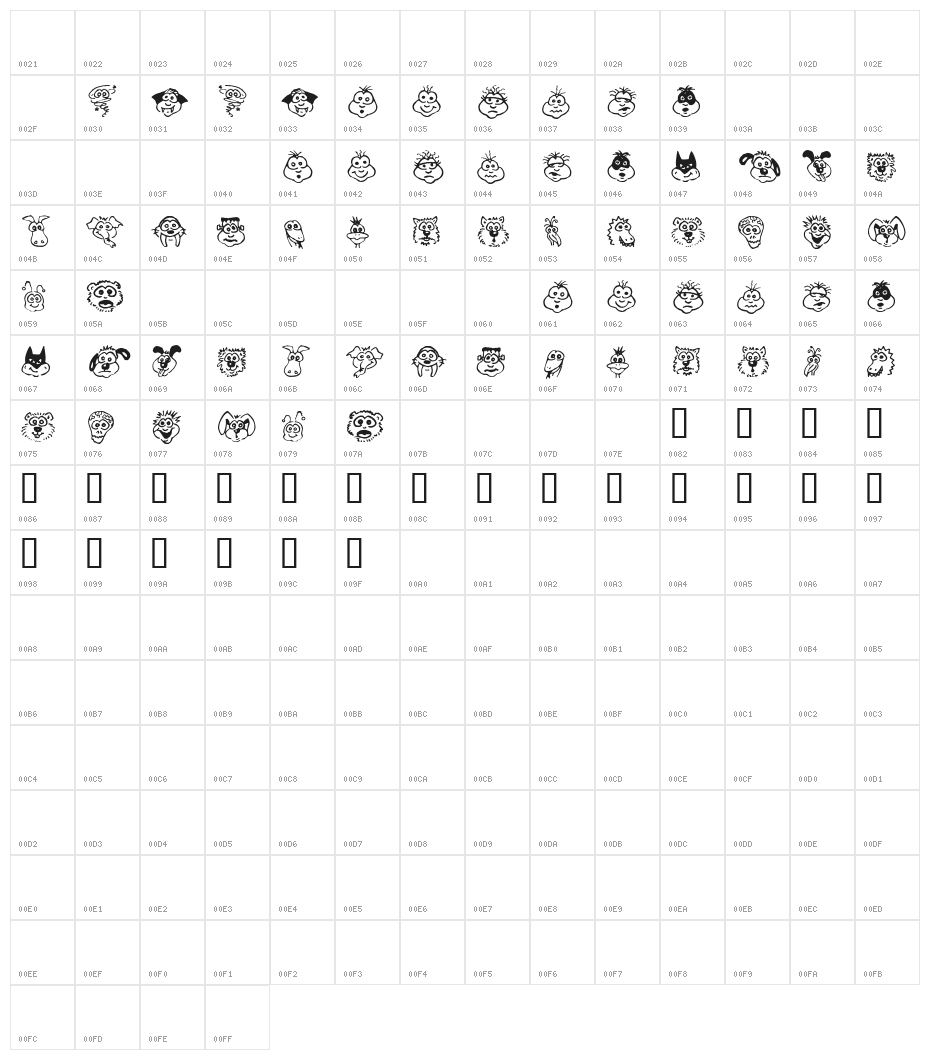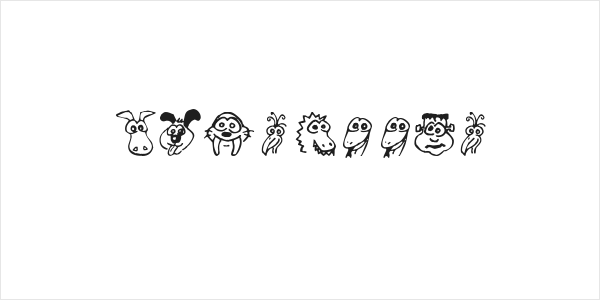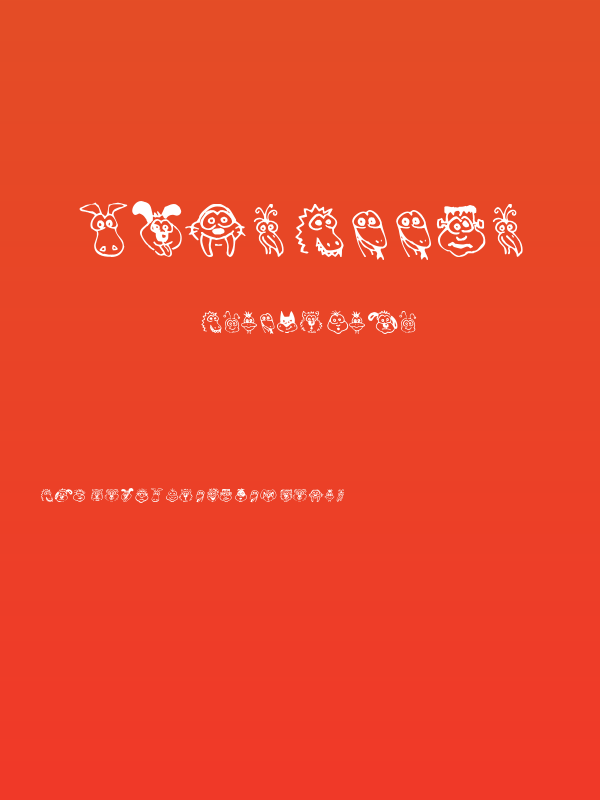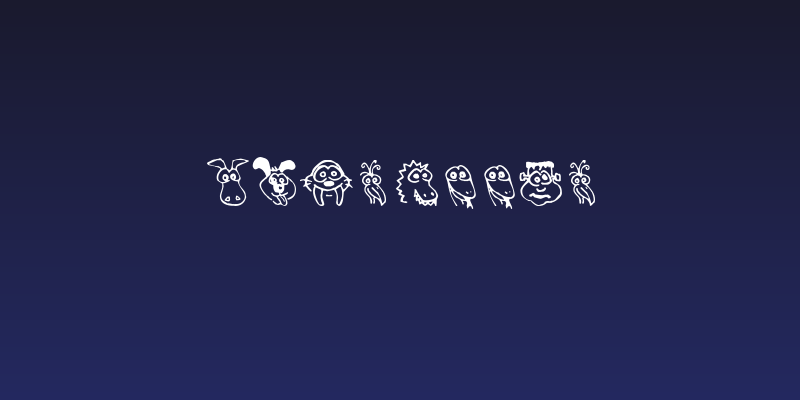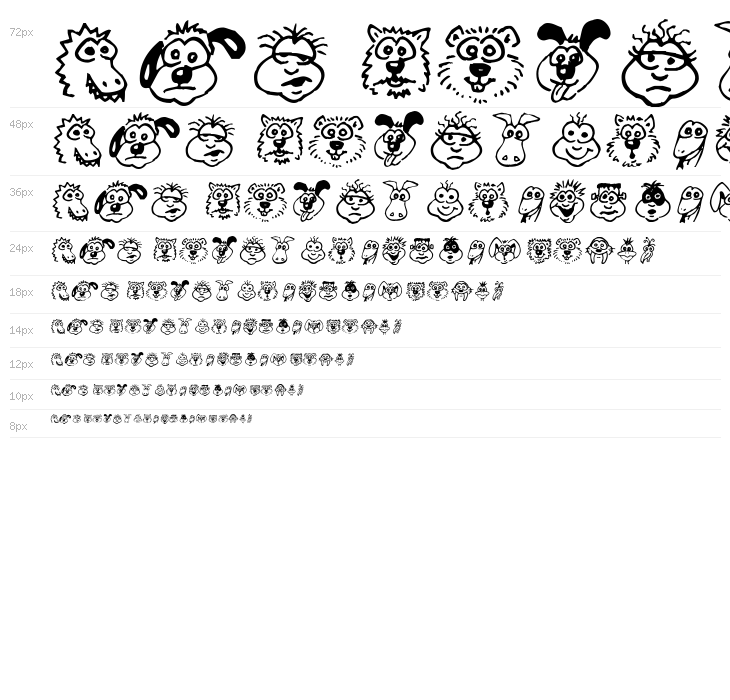
Kims Toons Font
| Gesamtstil | Playful, Whimsical, Decorative |
| Anwendungsfall | Decorative elements, icons, children’s projects, comics |
| Vorgeschlagene Projekte | Children’s books, party invitations, comic strips, educational materials, playful branding, stickers. |